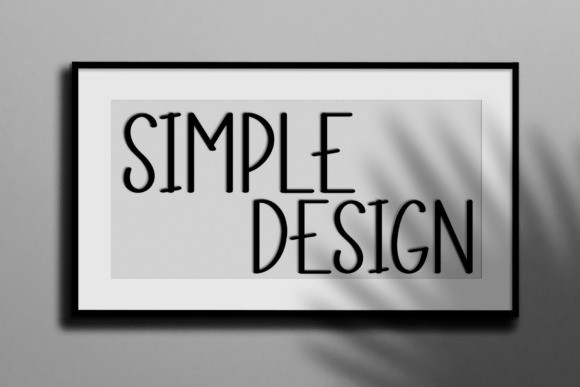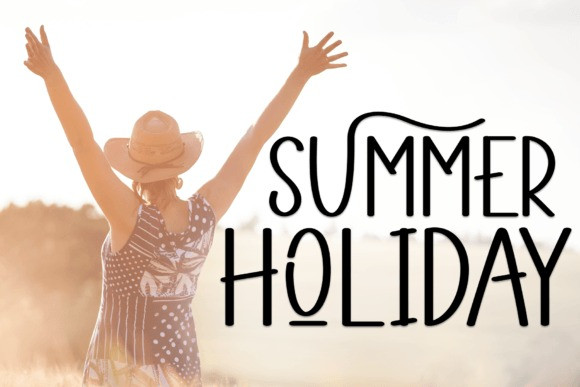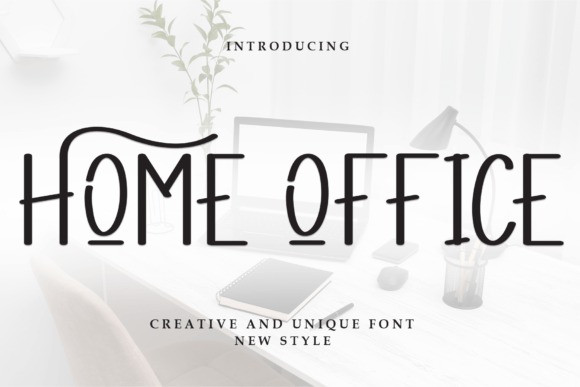
Home Office Font
Home Office Font – This is a sweet and friendly handwritten display font. Cute and fun, this font is ideal for writing wedding invitations, cards, or any other design that might need a fun touch!